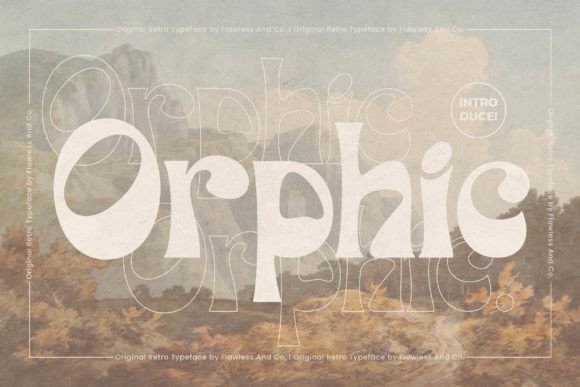
Journey into the realm of visual enchantment with Orphic, a display retro font that exudes a captivating fusion of vintage charm and contemporary flair. Crafted by the visionary artisans at Flawless And Co., Orphic is more than just a font; it's an artistic gateway to a world of boundless creativity.
Unleash your inner artist and let the magic of Orphic transform your designs into captivating masterpieces. Adorn your posters, branding materials, t-shirts, business cards, logos, photography, and quotes with the timeless allure of Orphic's meticulously crafted characters. Let your words dance in perfect harmony with this font's inherent expressiveness, leaving an indelible mark on the hearts and minds of your audience.
Orphic's captivating retro aesthetic conjures a sense of nostalgia, evoking the golden era of art and design. Its bold strokes and playful curves exude a carefree spirit, adding a touch of whimsy and enchantment to your creative endeavors. Whether you're crafting an unforgettable poster for an upcoming event or designing a captivating brand identity that resonates with your target audience, Orphic will elevate your designs to new heights of brilliance.
Embrace the versatility of Orphic and unlock a world of endless possibilities. Its carefully crafted characters lend themselves seamlessly to a myriad of design styles, effortlessly complementing both traditional and contemporary aesthetics. From eye-catching headlines that command attention to elegant body text that invites readers into a world of storytelling, Orphic adapts effortlessly to your creative vision.
With Orphic as your font companion, you hold the power to craft designs that captivate and inspire. Let your creativity soar as you explore the infinite possibilities that lie within this remarkable font. From heartfelt letters that convey your emotions with unparalleled eloquence to dynamic marketing campaigns that leave a lasting impression, Orphic will amplify your message and leave your audience spellbound.
Dare to be different. Embrace the allure of Orphic and unlock a realm of boundless creativity. Let your designs blossom into works of art, captivating your audience with every stroke of your imagination. The future of your design journey beckons, and Orphic stands ready to guide you towards an extraordinary horizon of success.